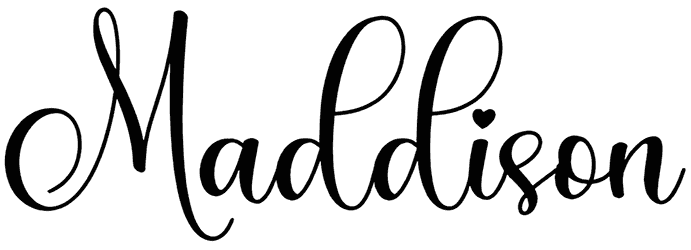
Marisa Font
There is nothing more stylish than Marisa, a modern and elegant font designed to meet your every need. Since it shows the assortment of thin, thick lines and speed in calligraphy, this handwritten and script font has little legibility. Still, its small and large characters can be excellent for designing wedding cards, postcards, birthday parties, and many luxury brands.
Designed by: Gilar Studio